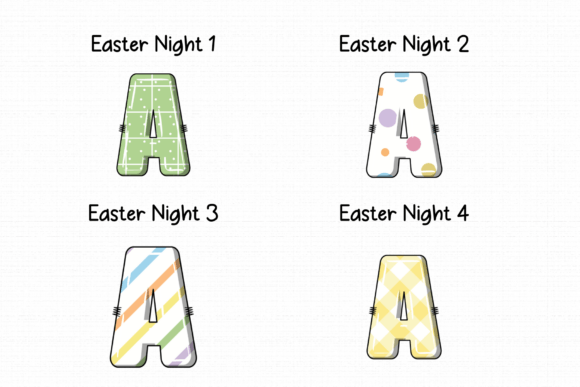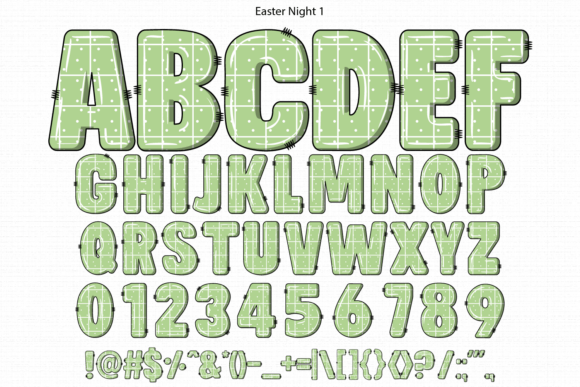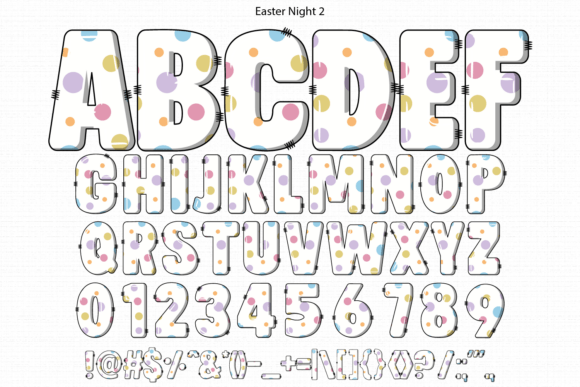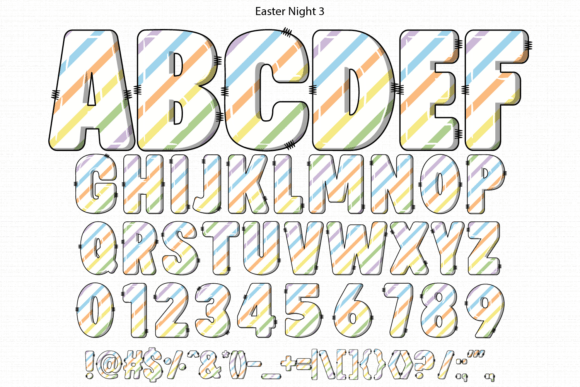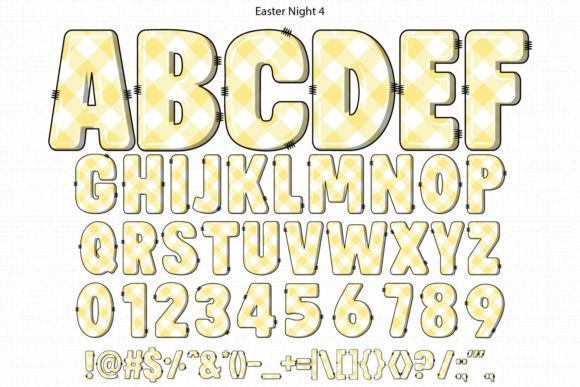
Introducing Easter Night: The Ultimate Easter-Themed Font for Designers and Crafters
Are you looking for a font that will add a touch of playfulness and authenticity to your Easter-themed designs? Look no further than Easter Night, a vibrant and whimsical font designed specifically for Easter Day. This versatile font is perfect for a range of creative projects, from refreshing blog posts and distinctive logos to striking branding, promotional ads, fine-tuned invitations, and thoughtful greeting cards.
A Font that Brings Easter Joy to Your Designs
Easter Night is more than just a font – it’s a way to infuse your designs with the delightful charm of Easter. Its unique and playful style makes it ideal for designers and crafters who want to create eye-catching and engaging content. Whether you’re working on a project for Easter-themed planners, photo albums, or decorations, Easter Night is the perfect choice.
Easter Night offers endless design possibilities for designers and crafters. Here are just a few ideas to get you started:
- Refresh your blog with Easter-themed posts and social media graphics
- Create distinctive logos and branding for Easter-themed businesses
- Design striking promotional ads and fine-tuned invitations for Easter events
- Craft thoughtful greeting cards and Easter-themed stationery
- Add a touch of Easter magic to your planners and photo albums
- Use Easter Night to create stunning decorations for Easter parties and events
Why Choose Easter Night?
So why choose Easter Night over other fonts? Here are just a few reasons:
- Unique and playful style that’s perfect for Easter-themed designs
- Perfect for designers and crafters of all skill levels
Get Ready to Hop into Easter with Easter Night
Easter Night is the ultimate Easter-themed font for designers and crafters. Its unique and playful style, versatility, and compatibility with a range of design programs and cutting machines make it the perfect choice for anyone looking to add a touch of Easter magic to their designs. Download Easter Night today and get ready to create eye-catching and engaging Easter-themed content that will delight your audience.